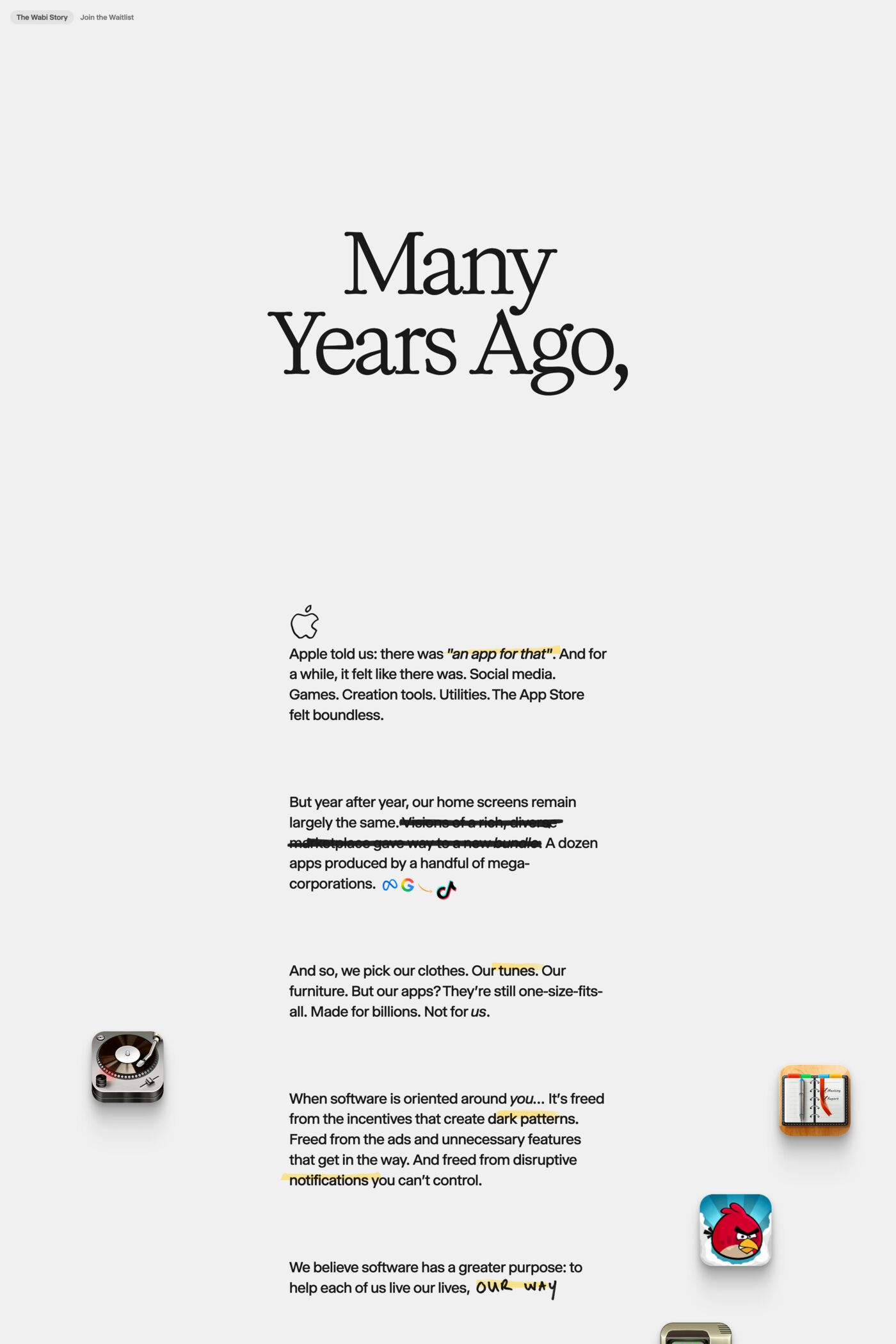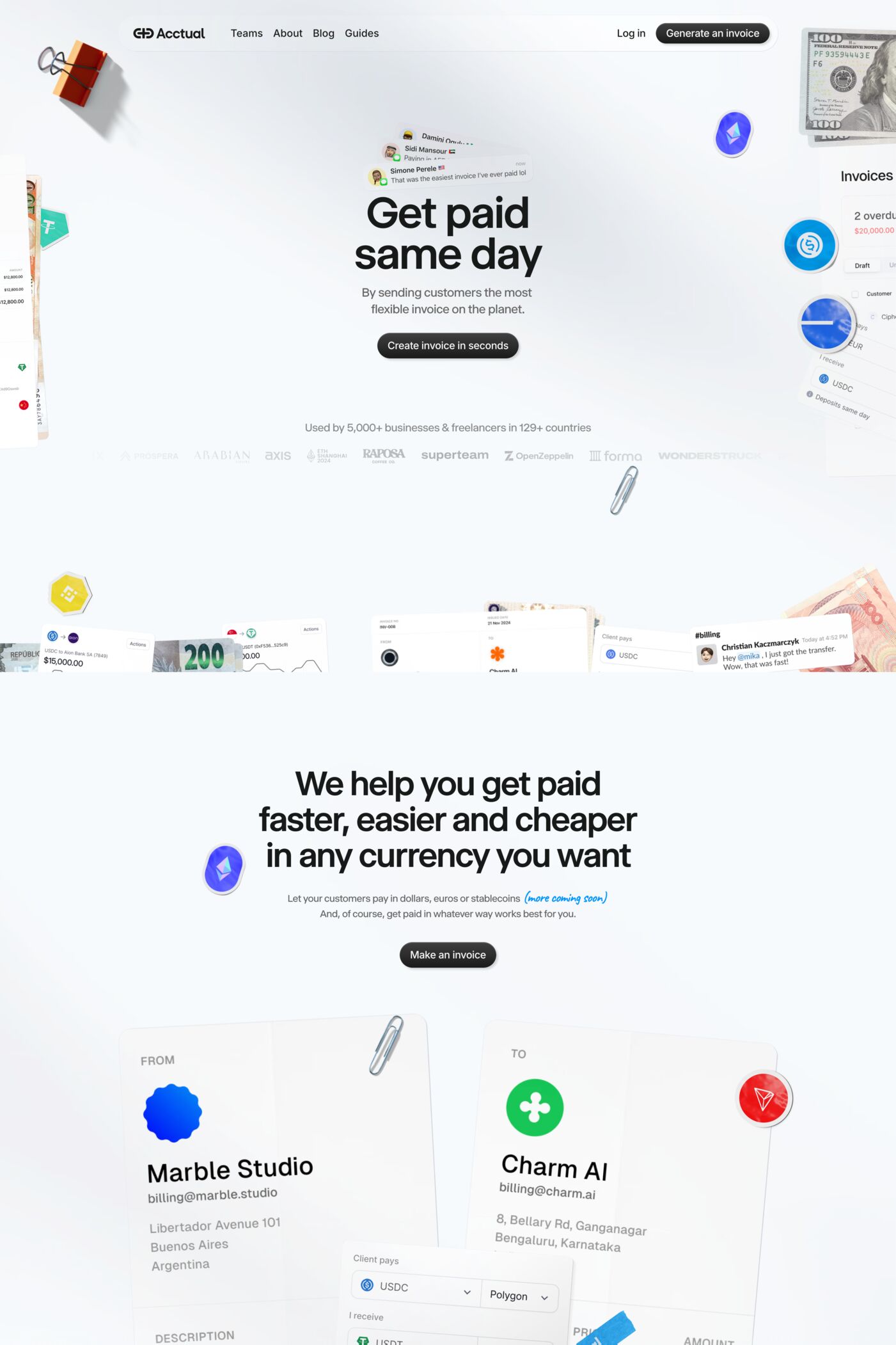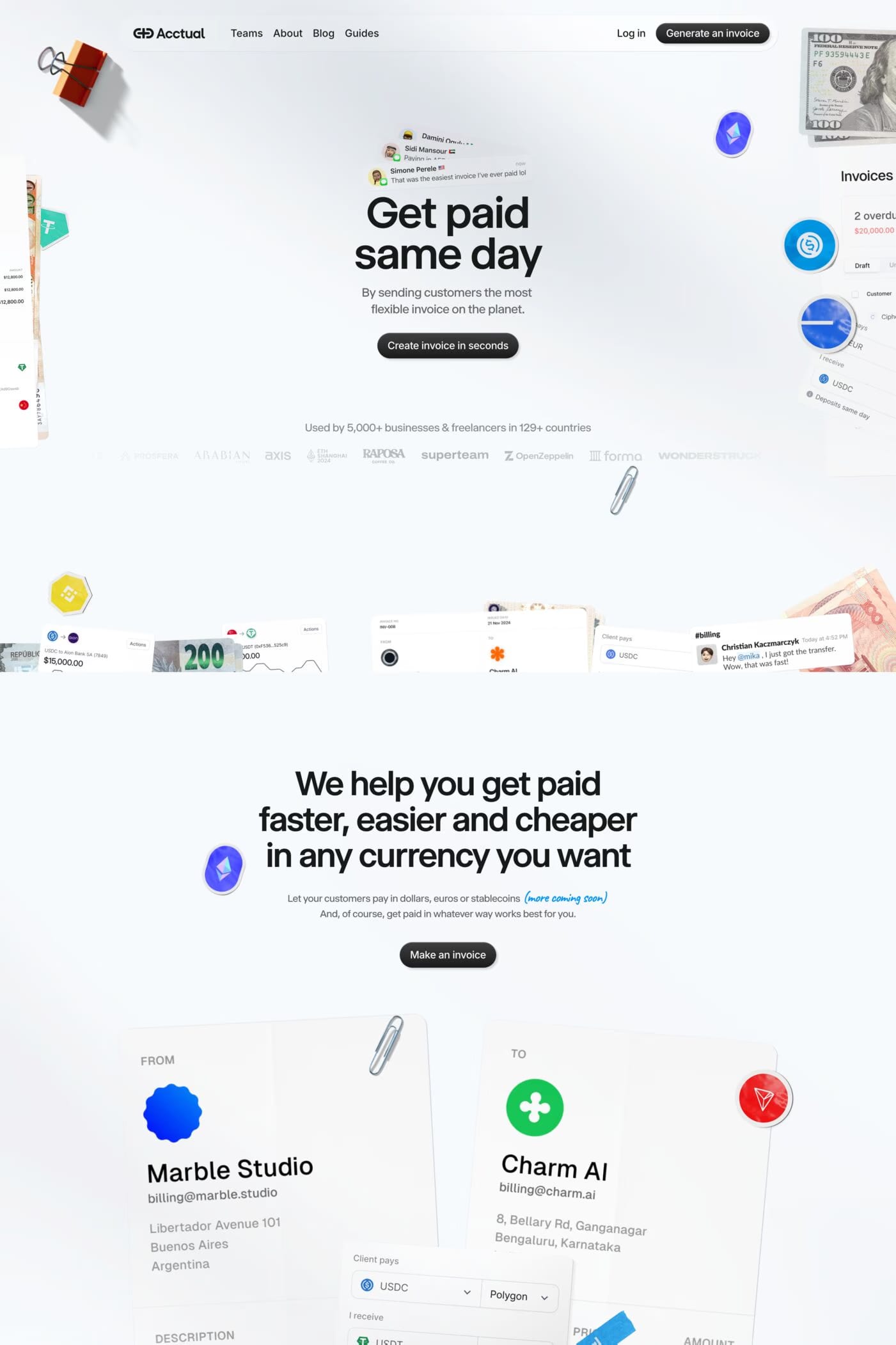
Selecta is a sans-serif typeface from Maxi Type.
Selecta is a highly legible sans-serif designed by Maximage (Daniel Haettenschwiller) after years of research into the ‘grotesque’ genre. The designer selected the best details from a wide selection of historical and modern sans-serif typefaces and made them his own, focusing notably on the legibility and personality of the typeface. Selecta is composed of 6 weights ranging from Thin to Black with Italics and is also available as a variable font. The fixed width across all styles and its large range of icons make it perfect for both print and digital applications, such as interface and app design.
A1 features 5 websites using Selecta, including Hebbia, Wabi, and Acctual. They lean towards Animated, Scroll animation, and Texture design styles, and they’re most often built with Next.js and Framer.